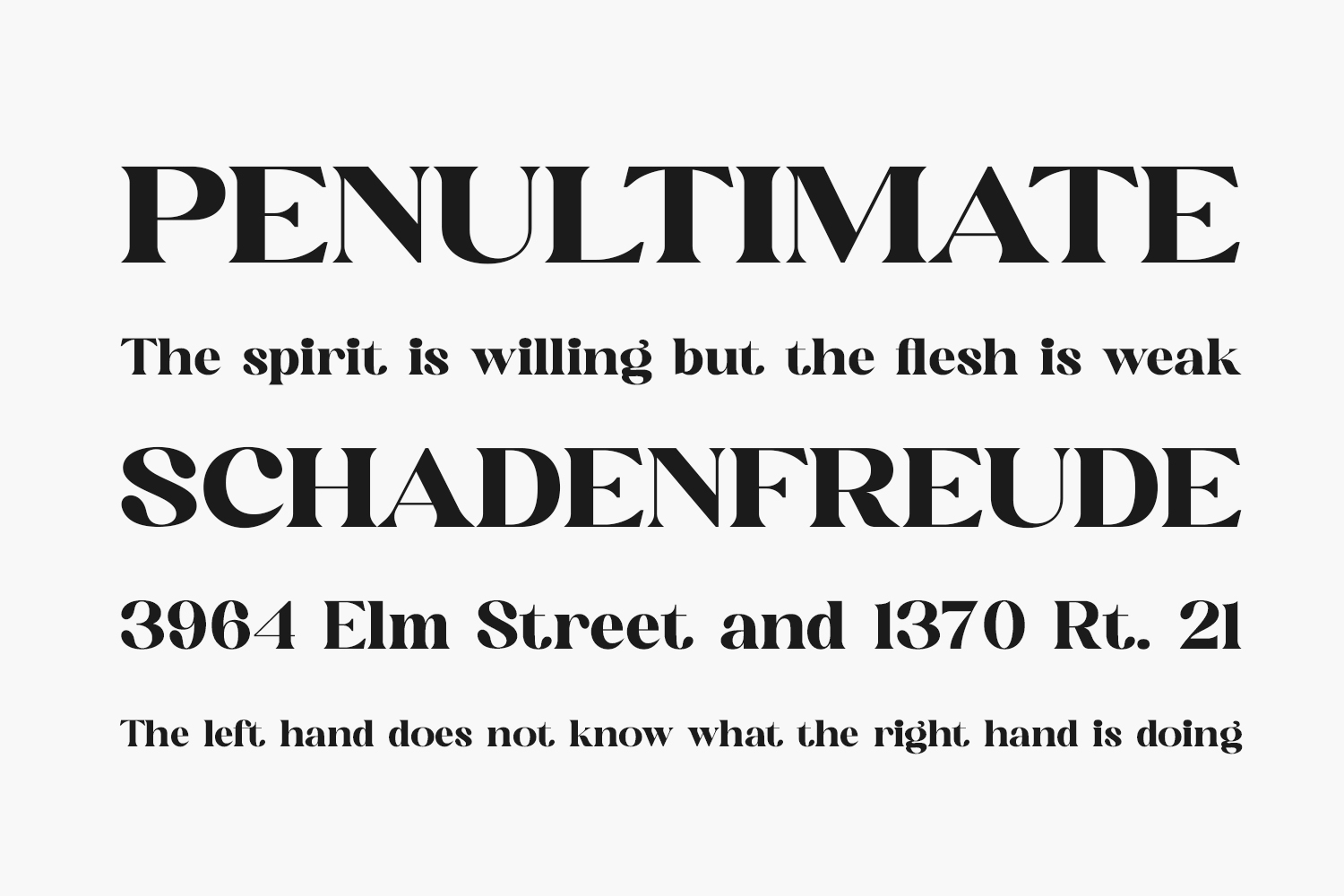
Mogilte Free Font effortlessly blends modernity with classic sophistication. It has a distinctive style, making it ideal for elegant logos, book or movie titles, fashion brands, magazines, clothing designs, lettering, quotes, and other design projects. Choose Mogilte for impeccable and versatile design. Download the font for free if you need it for personal use or purchase the full version for commercial use.